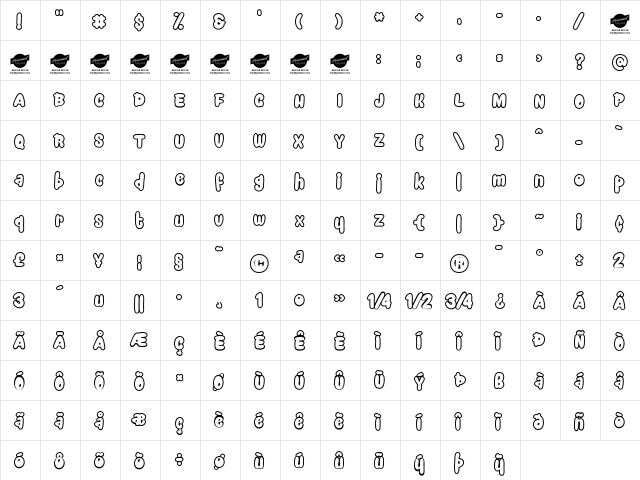
Snacker Comic Personal Use Only Regular
Design Context for Snacker Comic Personal Use Only Typeface
Snacker Comic Personal Use Only has an approachable, lighthearted character — its loose, expressive forms are well-suited to children's content, casual branding, and fun-first design.
Great for children's books, toy packaging, family event branding, and casual consumer-facing design.
Font Pairing: Pairs well with a rounded or humanist sans for body copy, maintaining the friendly tone without relying on Snacker Comic Personal Use Only to carry extended reading.
Pro Tip: Avoid using Snacker Comic Personal Use Only for long passages of text — it works best for headlines, labels, and short calls to action.